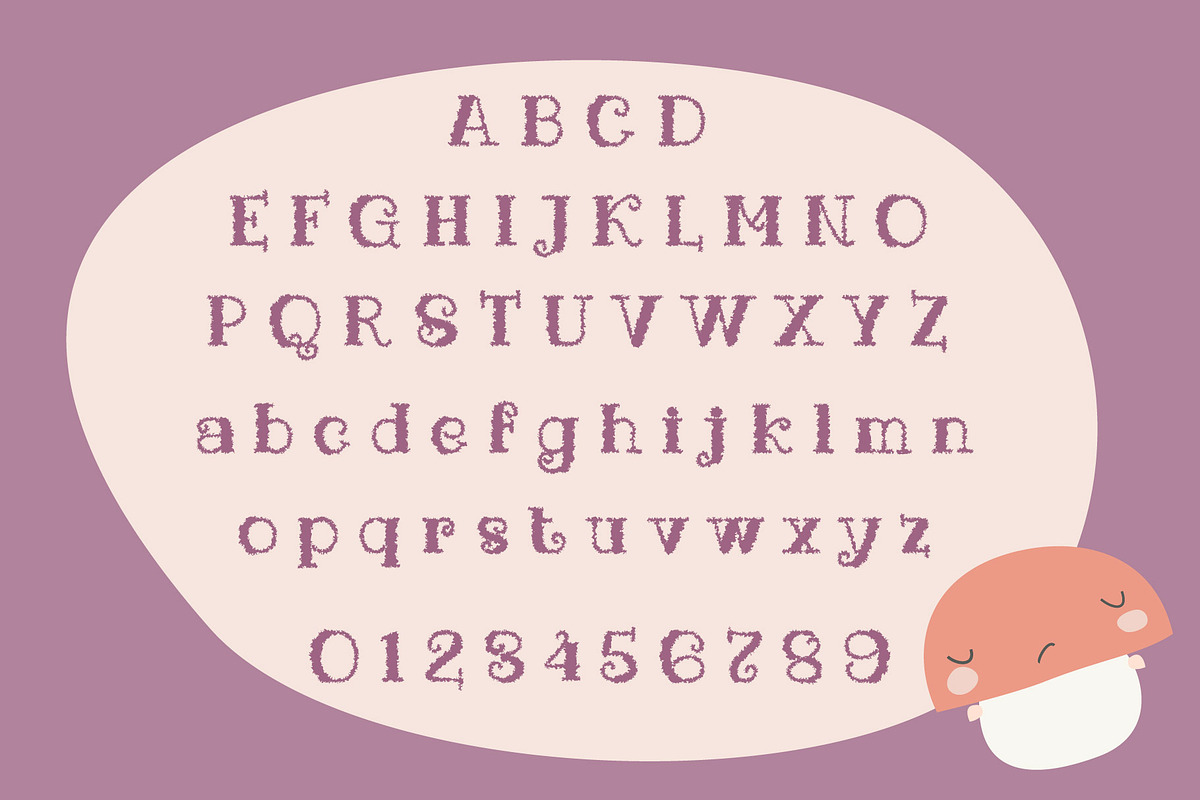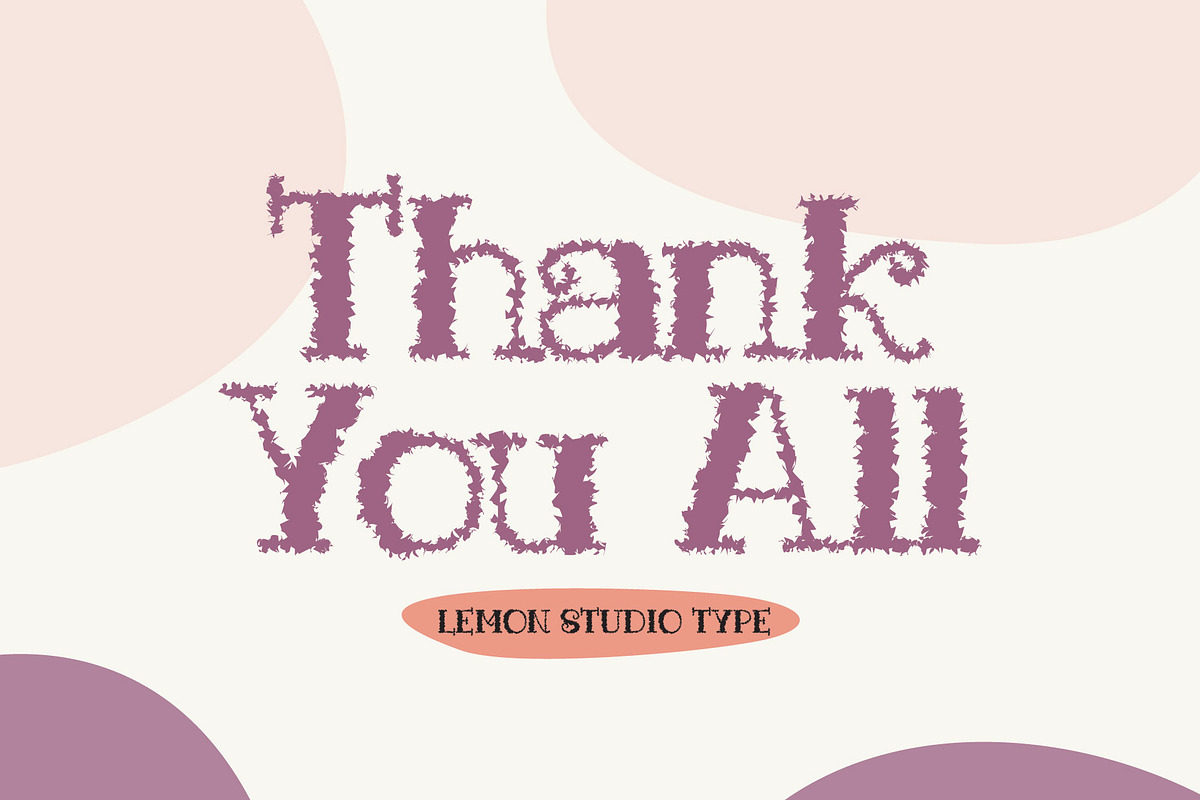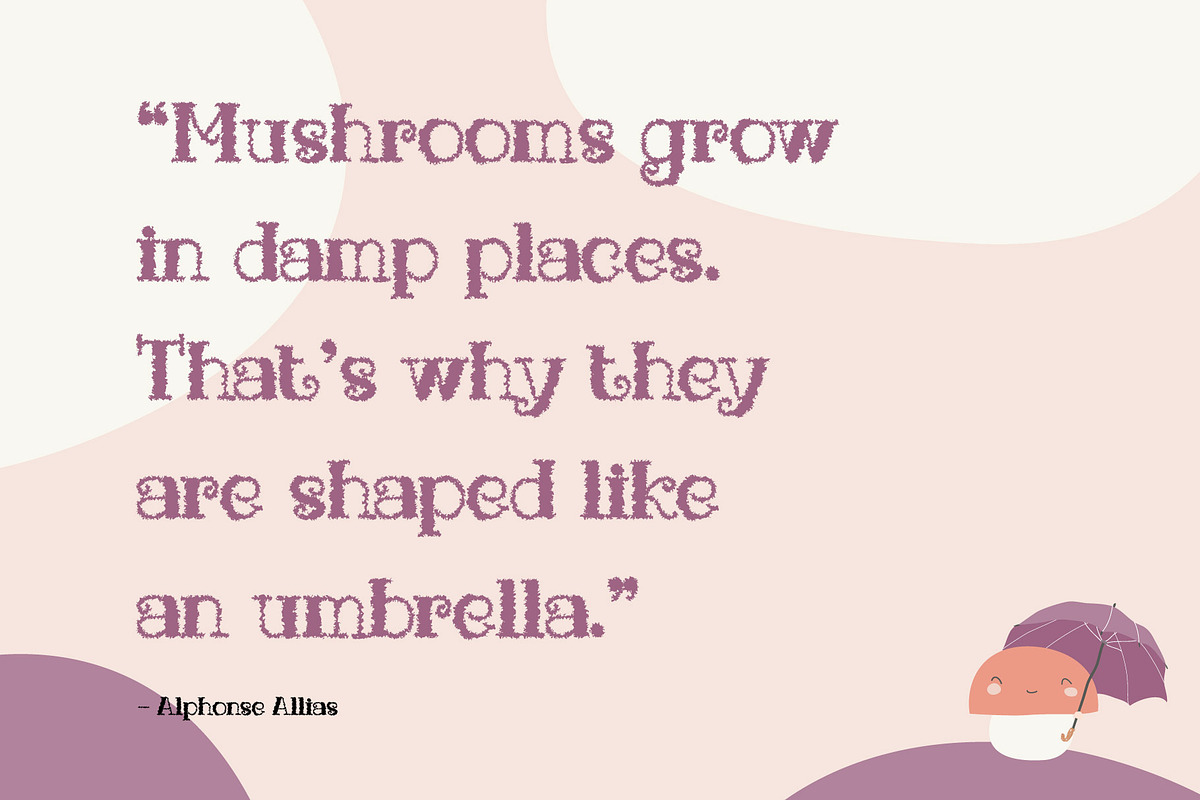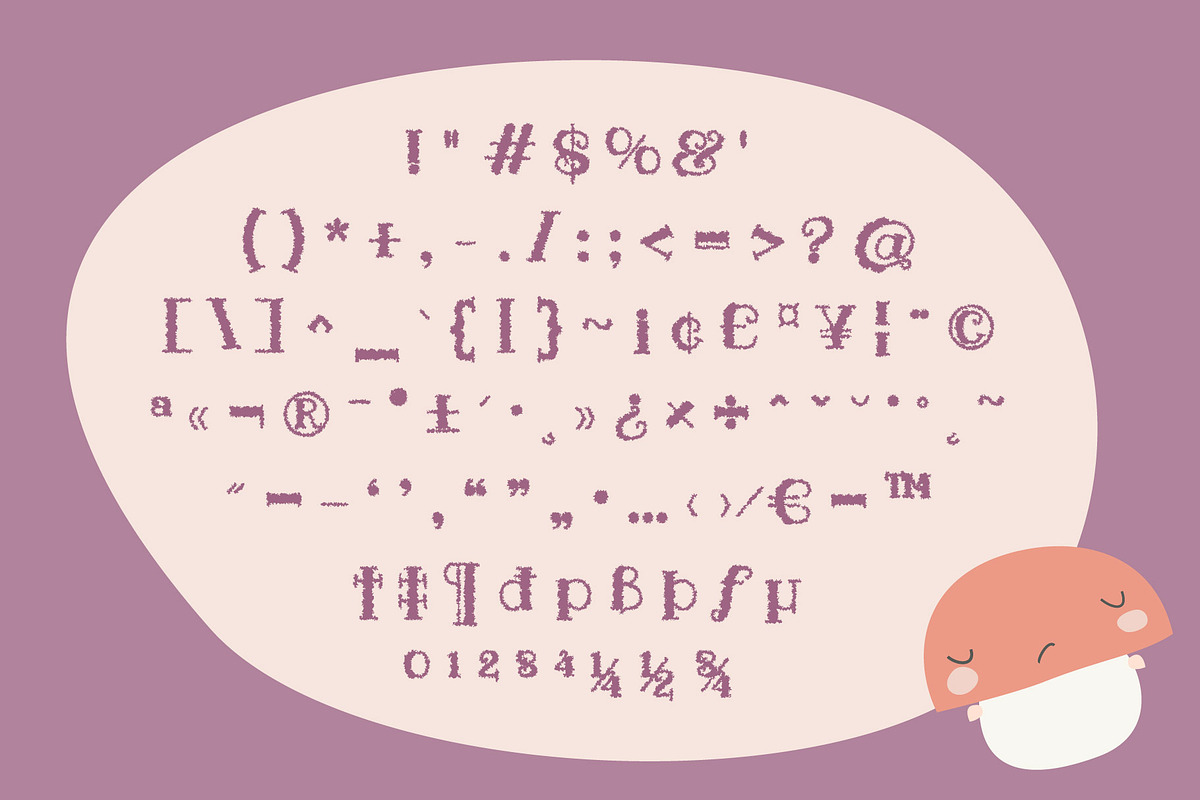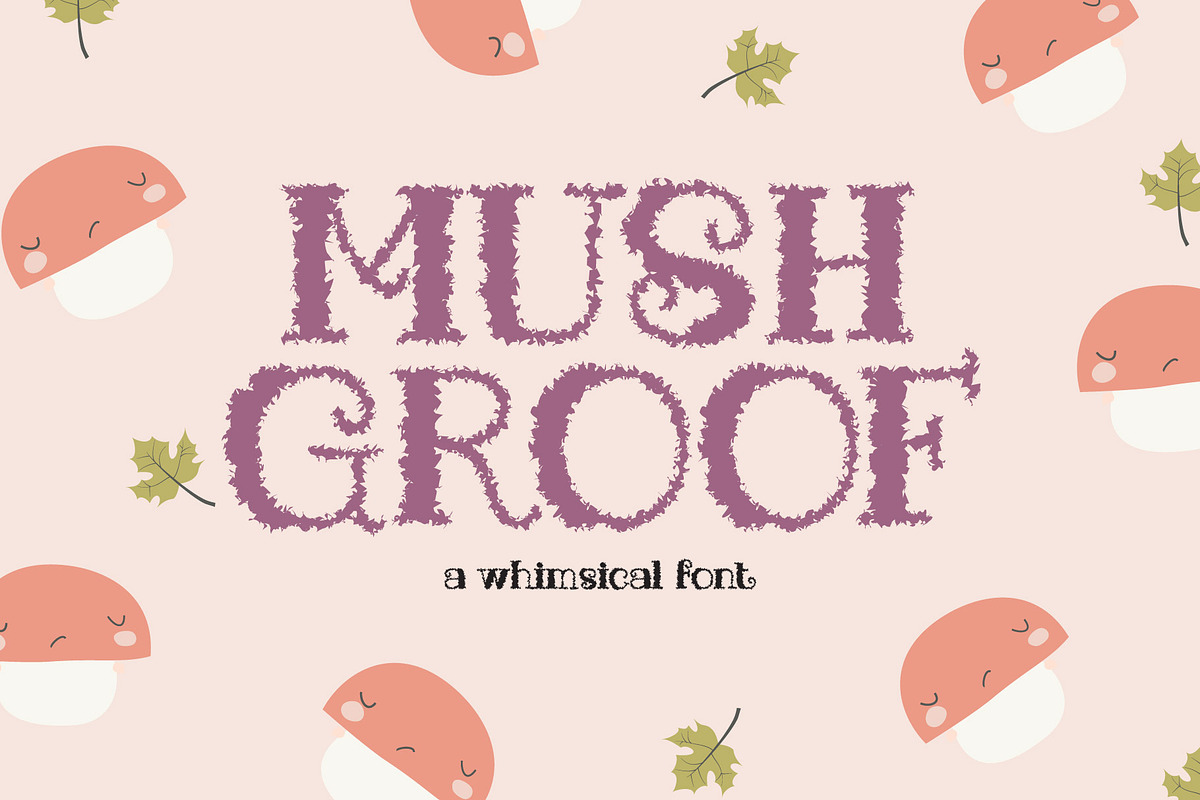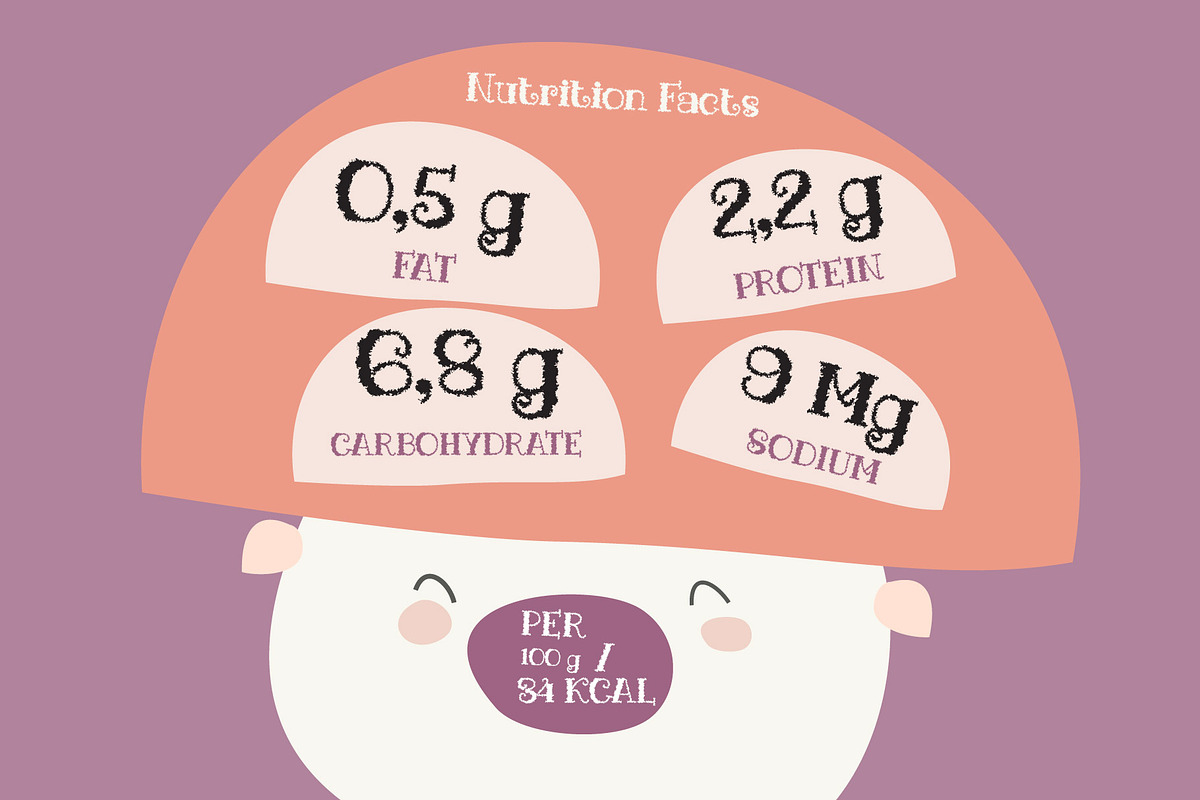
Mushgroof - Cute Display
Mushgroof is a whimsical font that has a unique shape, thick and thin from each shapes are very attractive. Added with rough texture accents, to become a dazzling playful font.
STANDARD CHARACTER SET
OPEN TYPE FEATURES:
Fractions
Superscript.